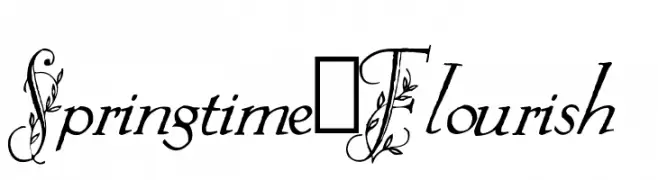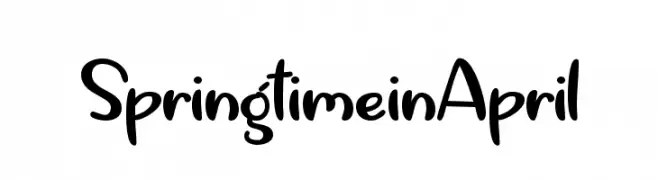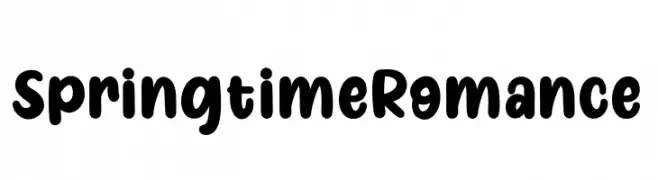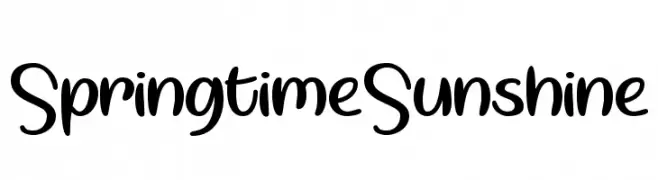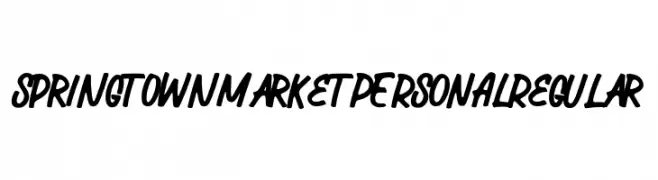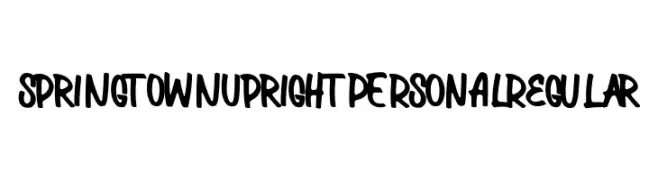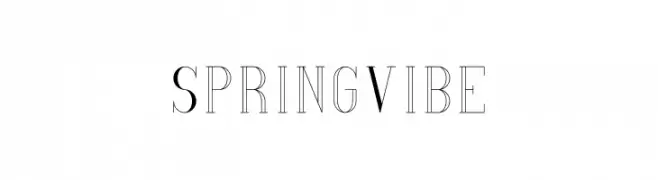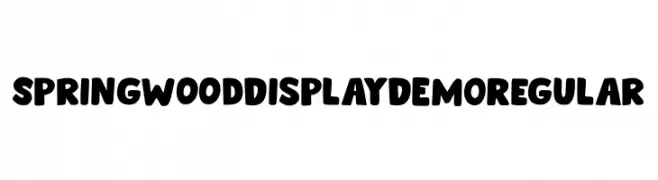
An elegant, decorative font with floral embellishments and script-like lowercase letters.
A playful, bold font with rounded, bubbly characters.
A playful, handwritten font with smooth, rounded edges and a casual style.
A bold, energetic script font with a hand-drawn appearance.
A bold, expressive handwritten font with playful curves.
A whimsical and playful font with curly, looping strokes and decorative swirls.
A bold, brush-style font with a lively, hand-painted appearance.
A bold, playful font with rounded edges and a whimsical style.